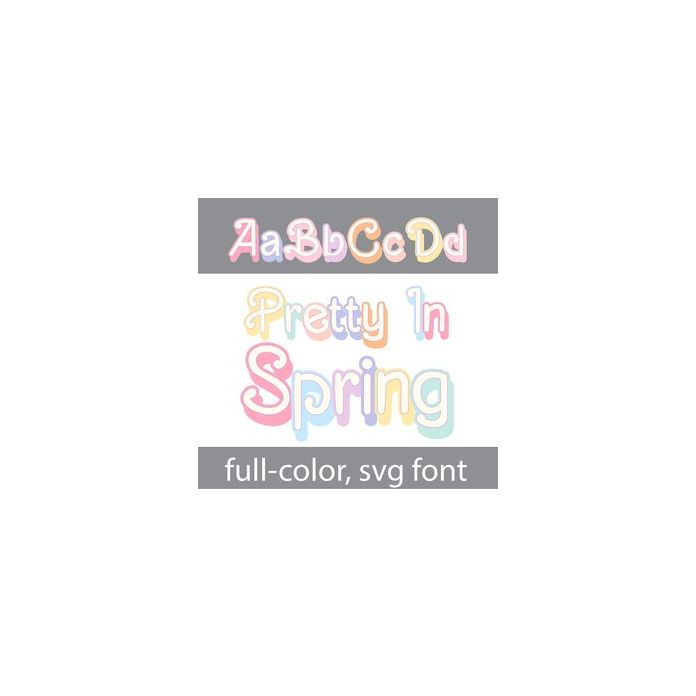
This full-color font features a pretty, font with a bit of flourish in a pretty, spring, pastel color palette. There is an alt case w/ additional colors you can access through your system or Silhouette's glyph map.